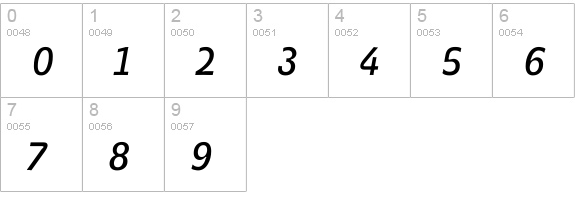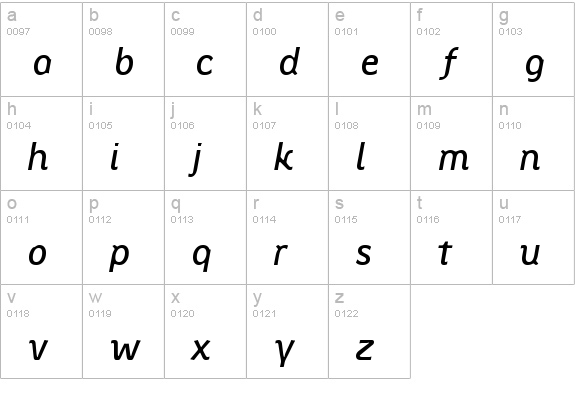
Spotka AlternateMedium Italic is a distinctive, italic variant in the Spotka typeface family \xE2\x80\x94 well suited to design and typography projects.
Spotka AlternateMedium Italic is a sleek and modern font that exudes elegance and sophistication. With its unique style and graceful curves, this font is perfect for adding a touch of flair to any design project. The italicized version of Spotka AlternateMedium adds a sense of dynamism and energy to your text, making it stand out and capture the attention of your audience. The best part? Spotka AlternateMedium Italic is available for free download at FontsMarket.com. You can easily access this stylish font and incorporate it into your designs without any hassle. Don't miss out on this opportunity to elevate your projects with the distinctive charm of Spotka AlternateMedium Italic. Download it today and start creating stunning visuals that leave a lasting impression.